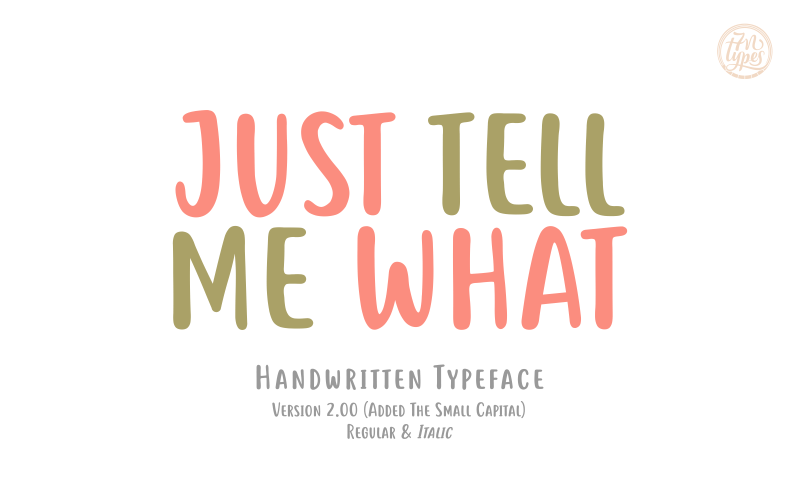
Font name: | Just tell me what |
Updated Version 2.00 - Small Capital was Added. Just tell me what is a flowing, rounded handwritten font. The font breathes a soft vibe which give the text a relaxed and happy feeling. It has two family: Regular and italic Personal use: FREE (Donation is much appreciated!) Commercial use: BUY it only on Creative Fabrica: https://www.creativefabrica.com/product/just-tell-me-what/ref/87/ Contact me [c7nazara@gmail.com] or visit my website https://7ntypes.com if you have any request or question. Thank you. |